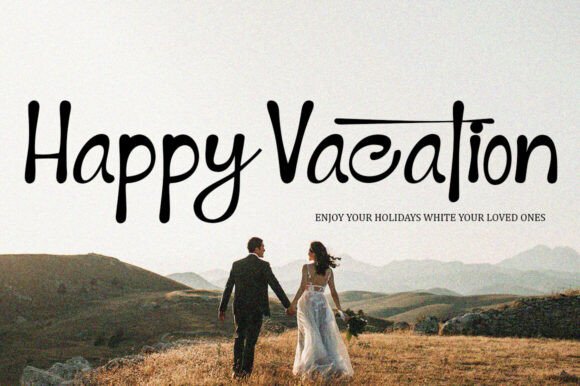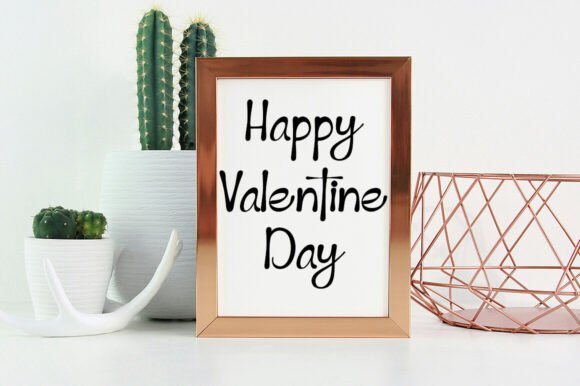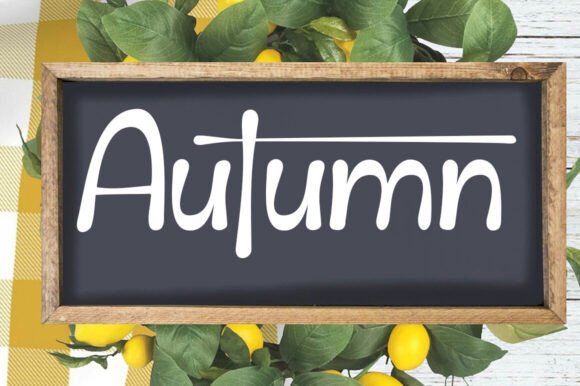
Alphabet Handwritten Font
Alphabet Handwritten is a modern handwritten font. It’s perfect for branding, wedding invitations, photography, Neon Sign, bloggers, logos, greeting cards, logo, quotes and more.